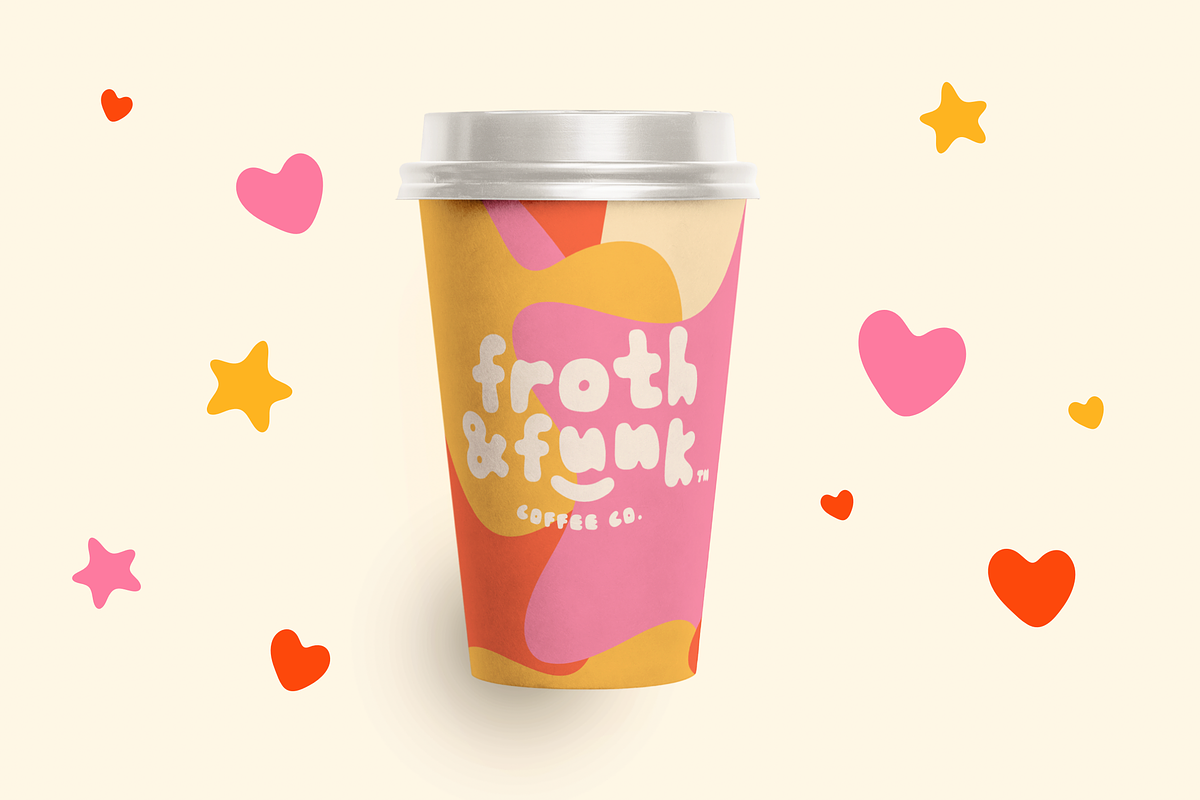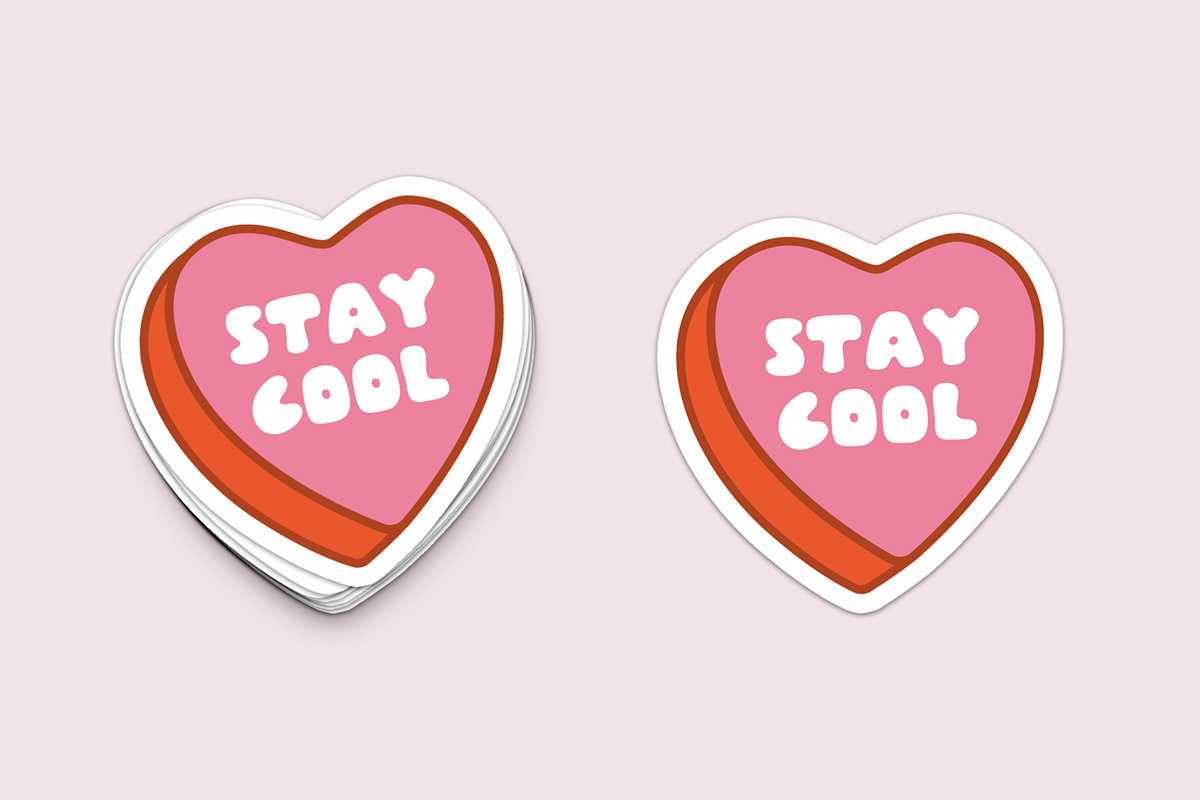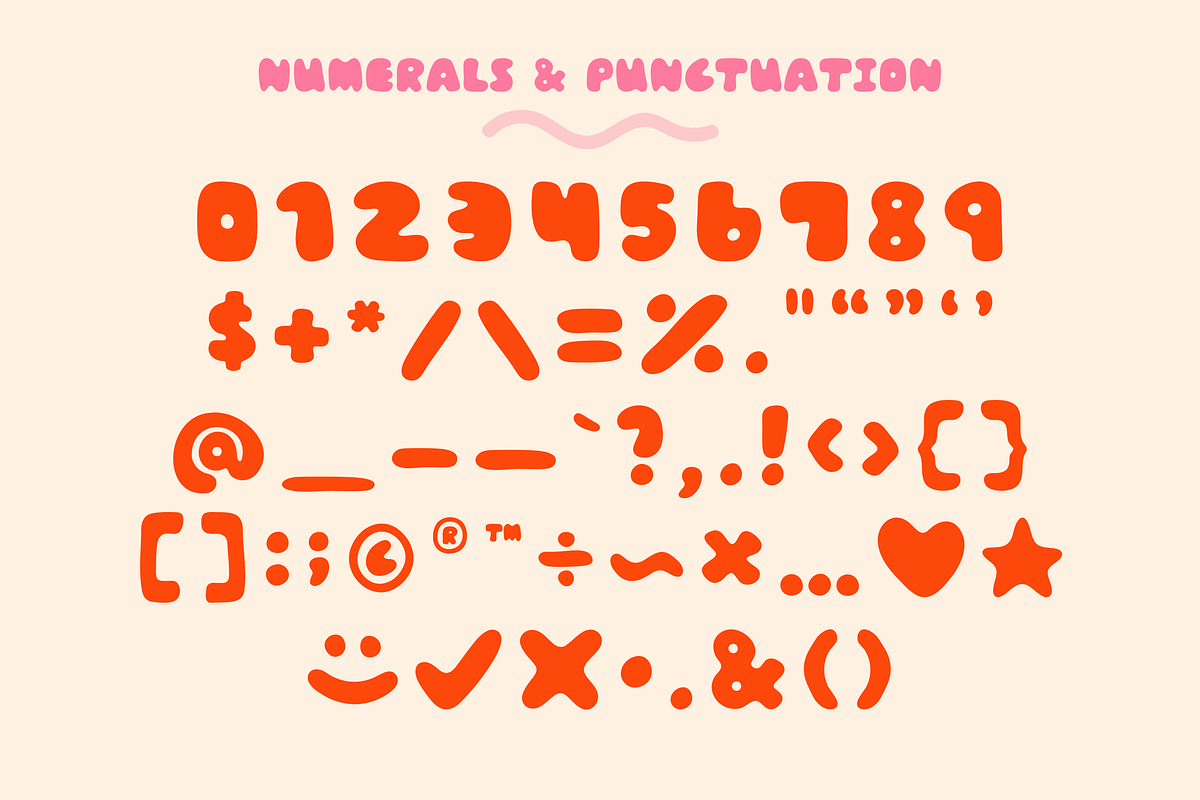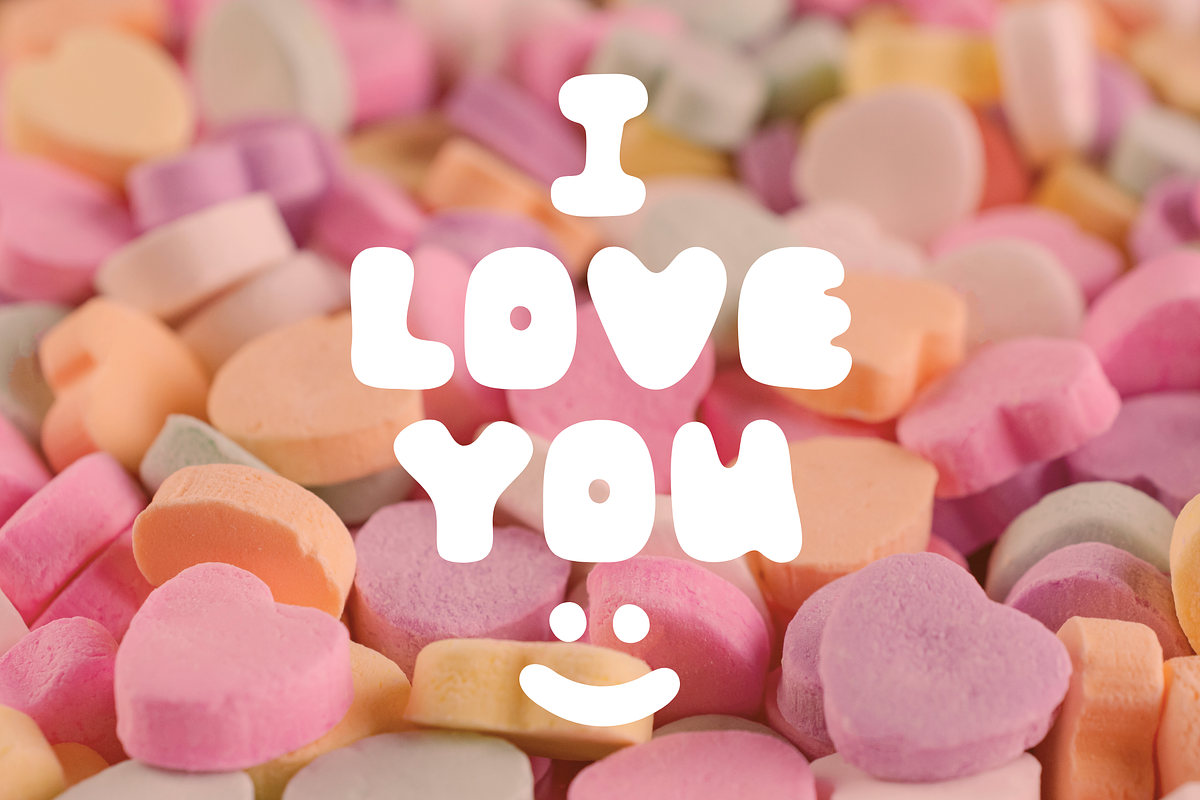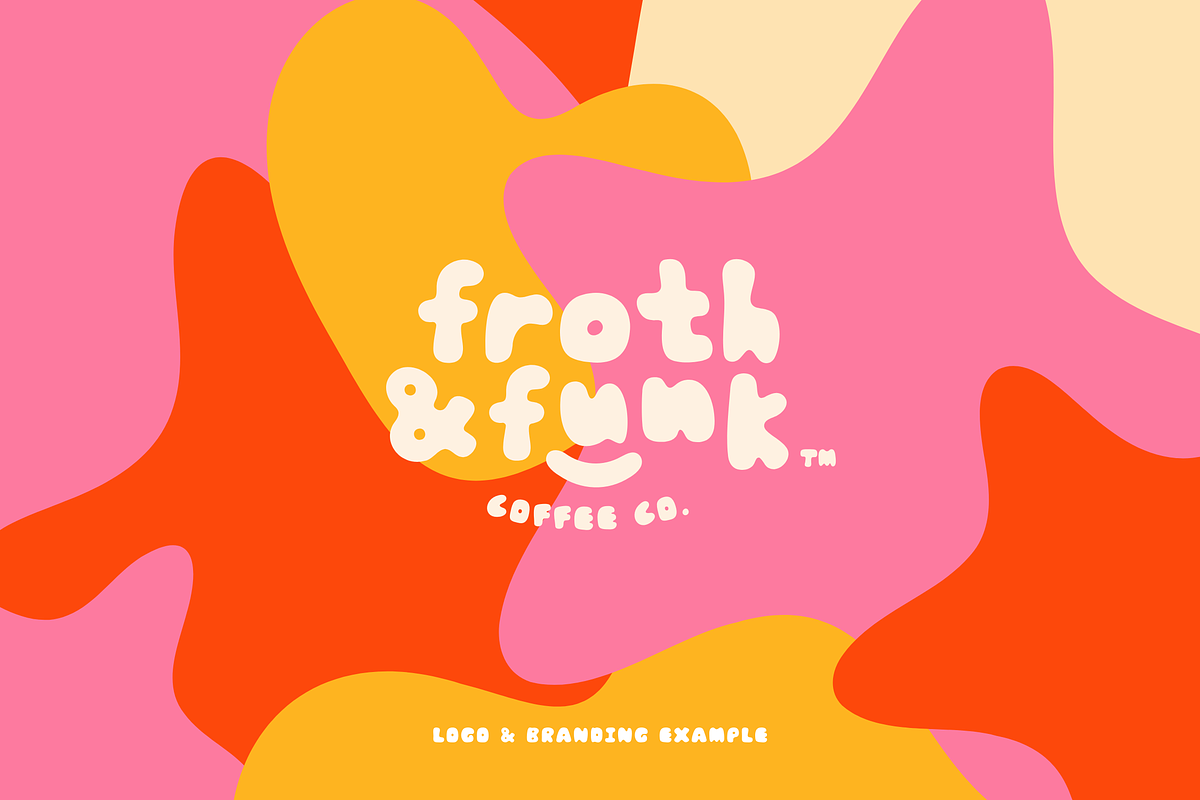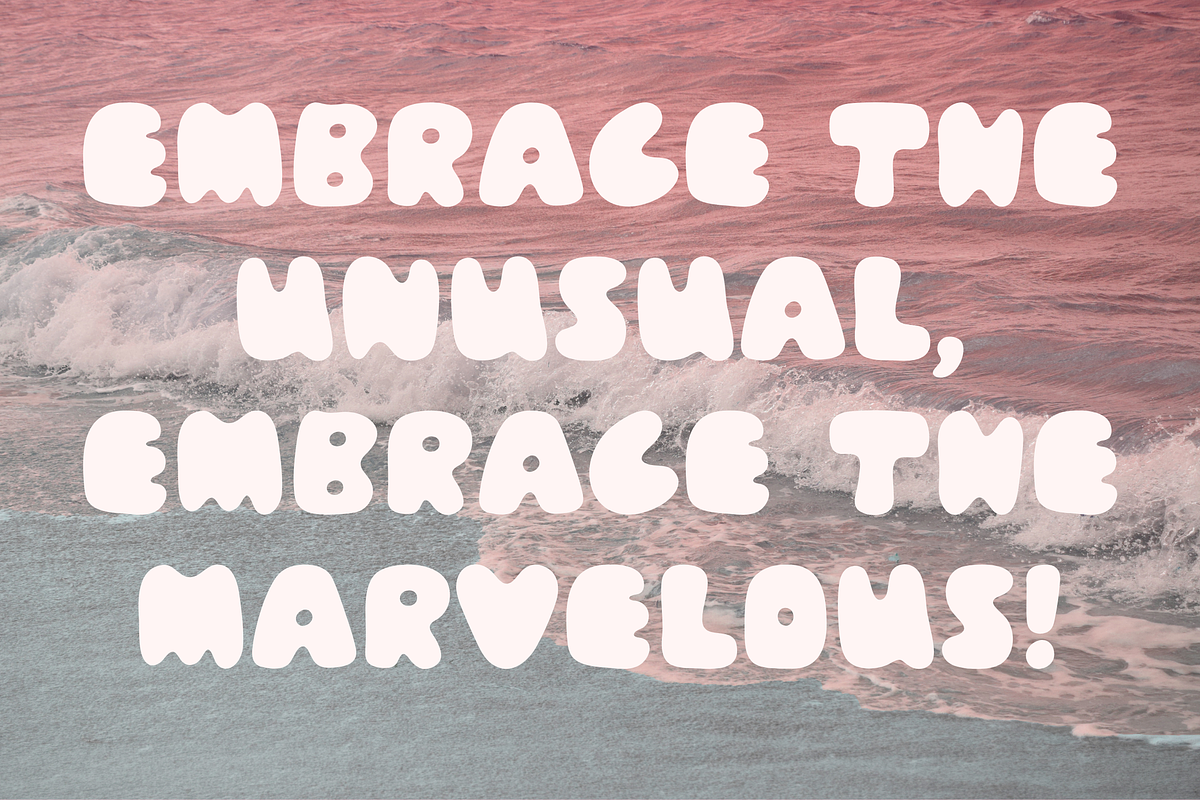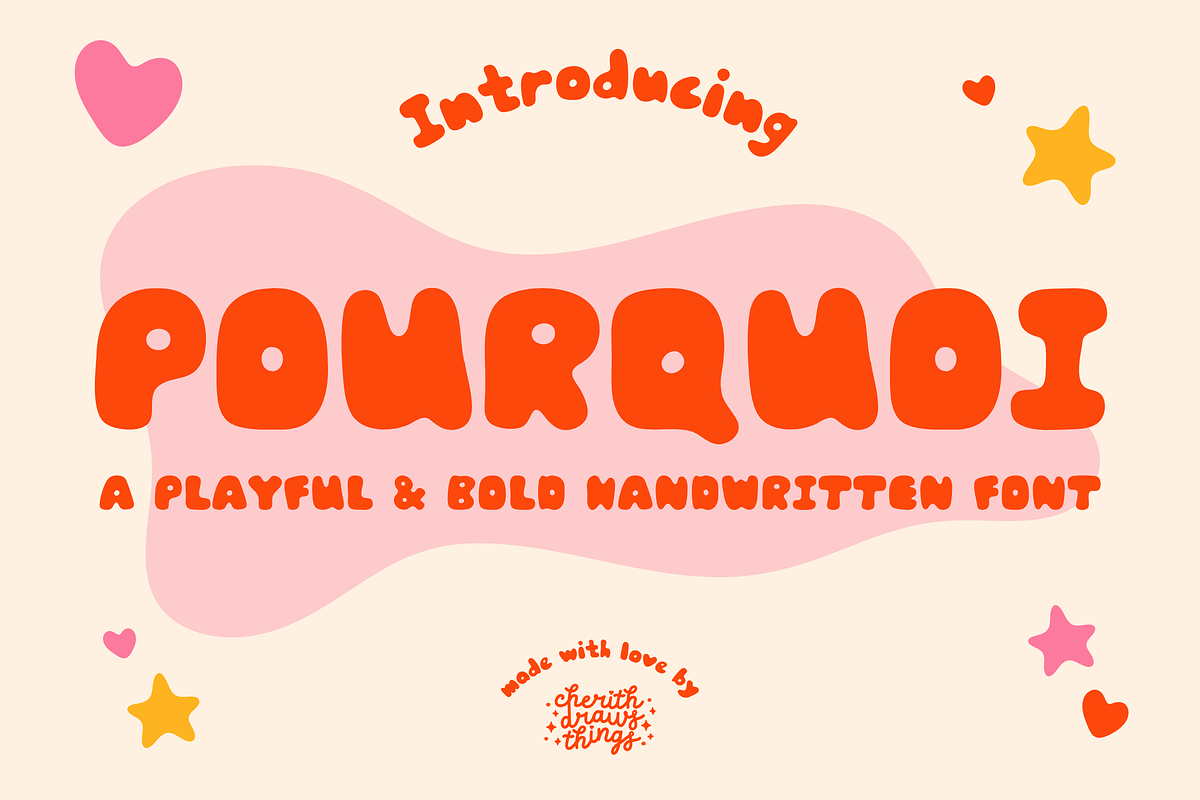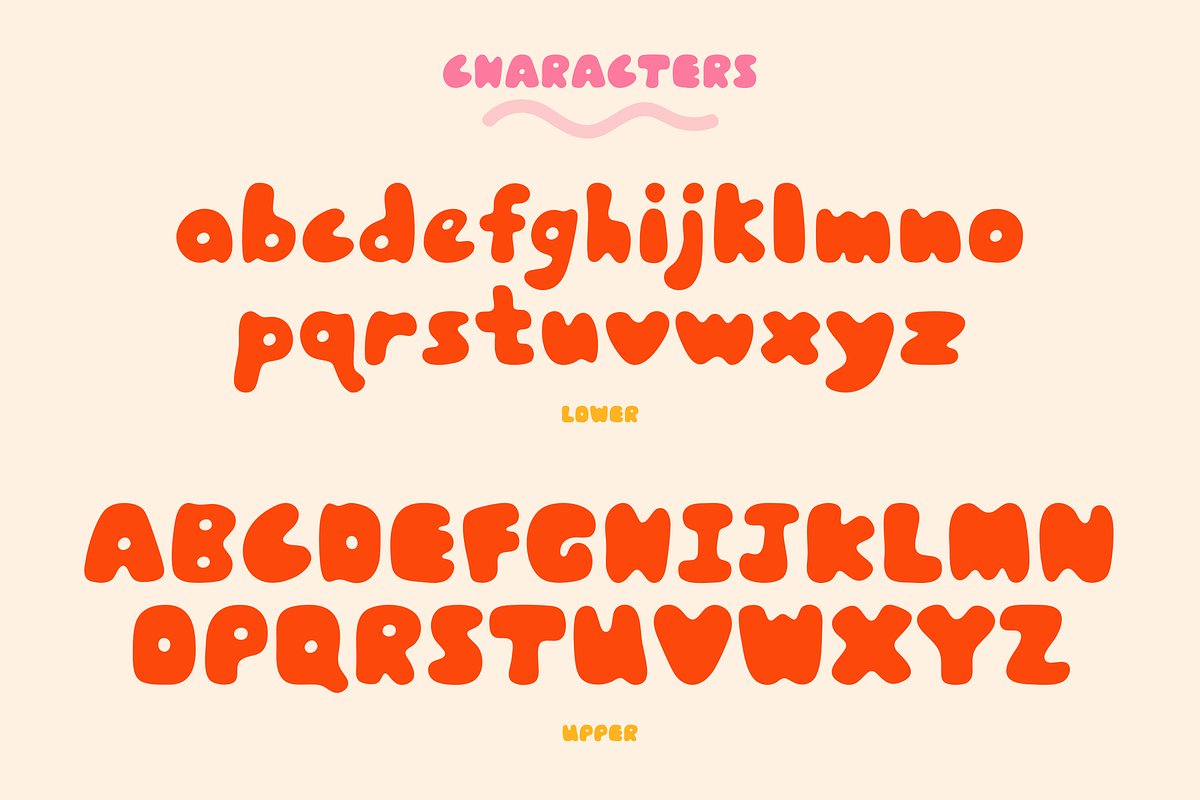
POURQUOI – Handwritten Display Font
Introducing POURQUOI – A bold, bubbly handwritten font that’s packed with personality. Its funky, playful style makes it perfect for branding, social media posts, packaging, stickers, and more. POURQUOI stands out with its organic, wobbly shapes, giving your designs a fun, feel-good vibe.
🎯 Perfect for: Logos, Posters, Stickers, Packaging, Social Media Graphics, Merch, and More